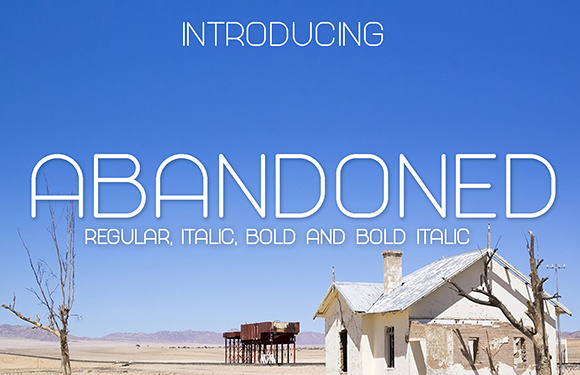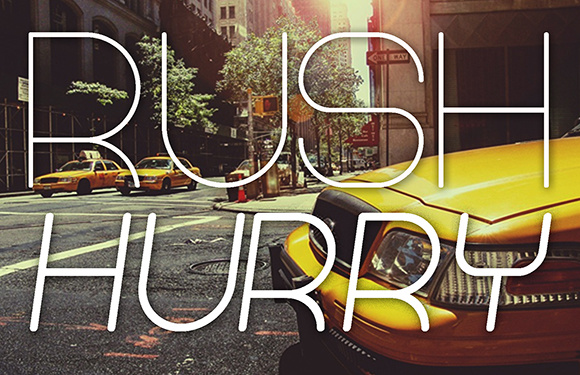
Abandoned Font Family
Abandoned is a clean, thin, sans serif font. Abandoned is excellent for posters, flyers, banners and more.
Abandoned comes in Regular, Italic, Bold and Bold-Italic.